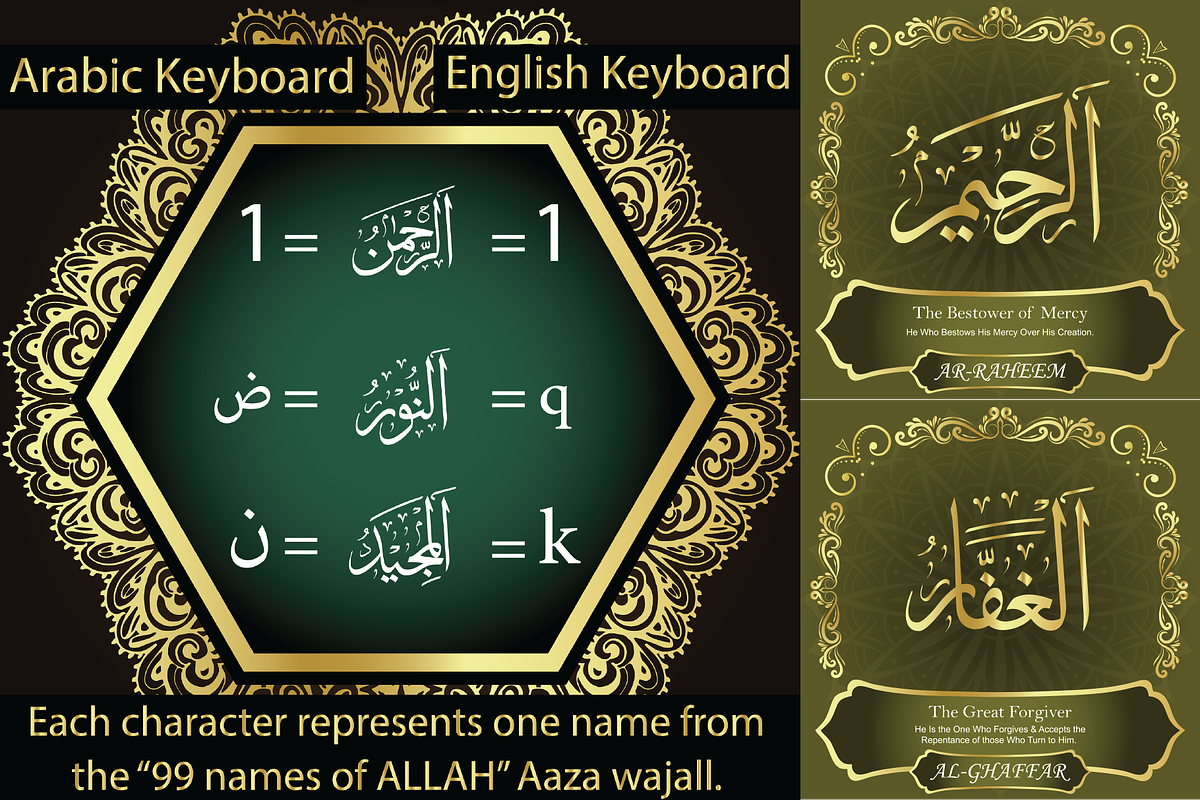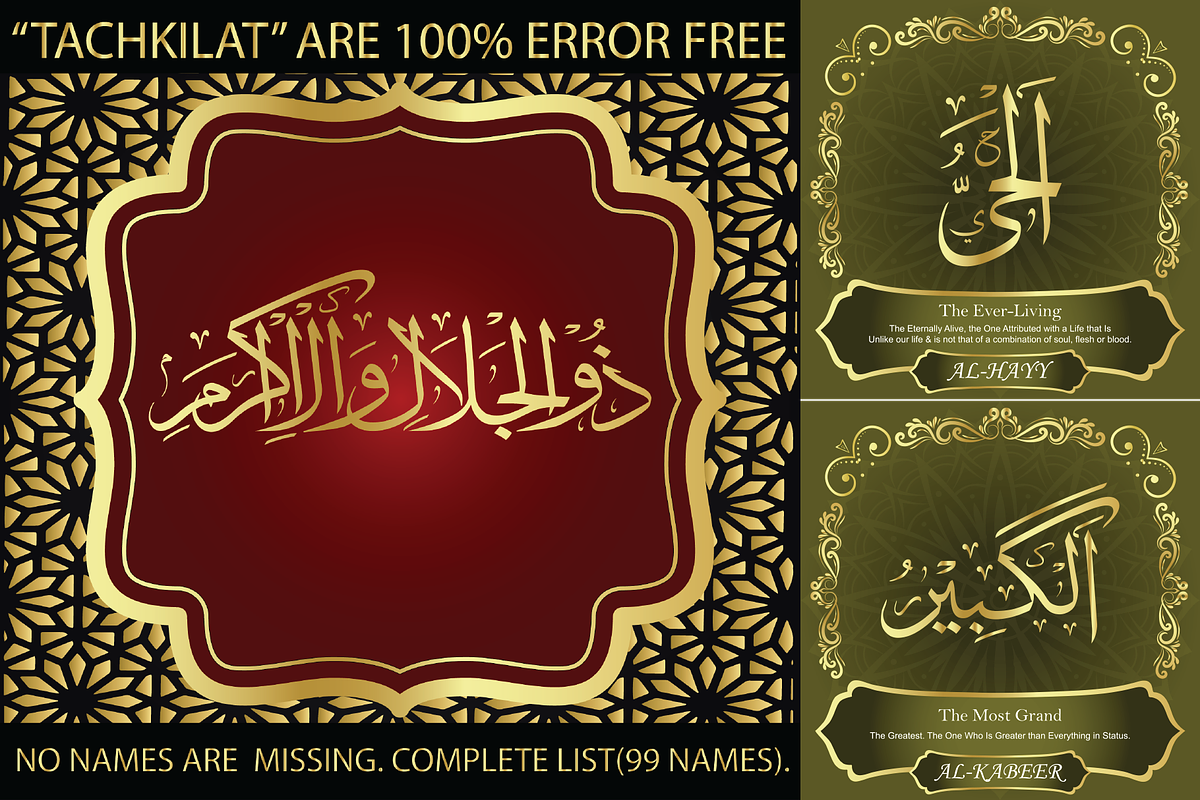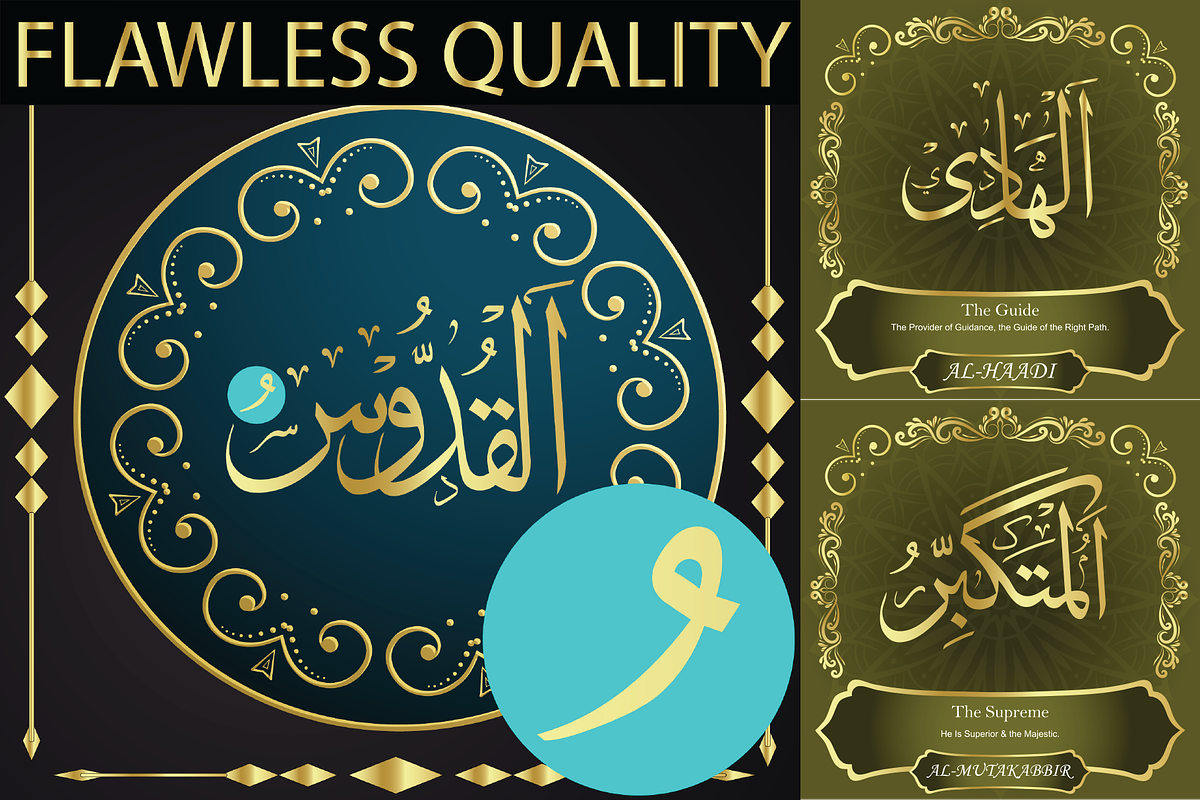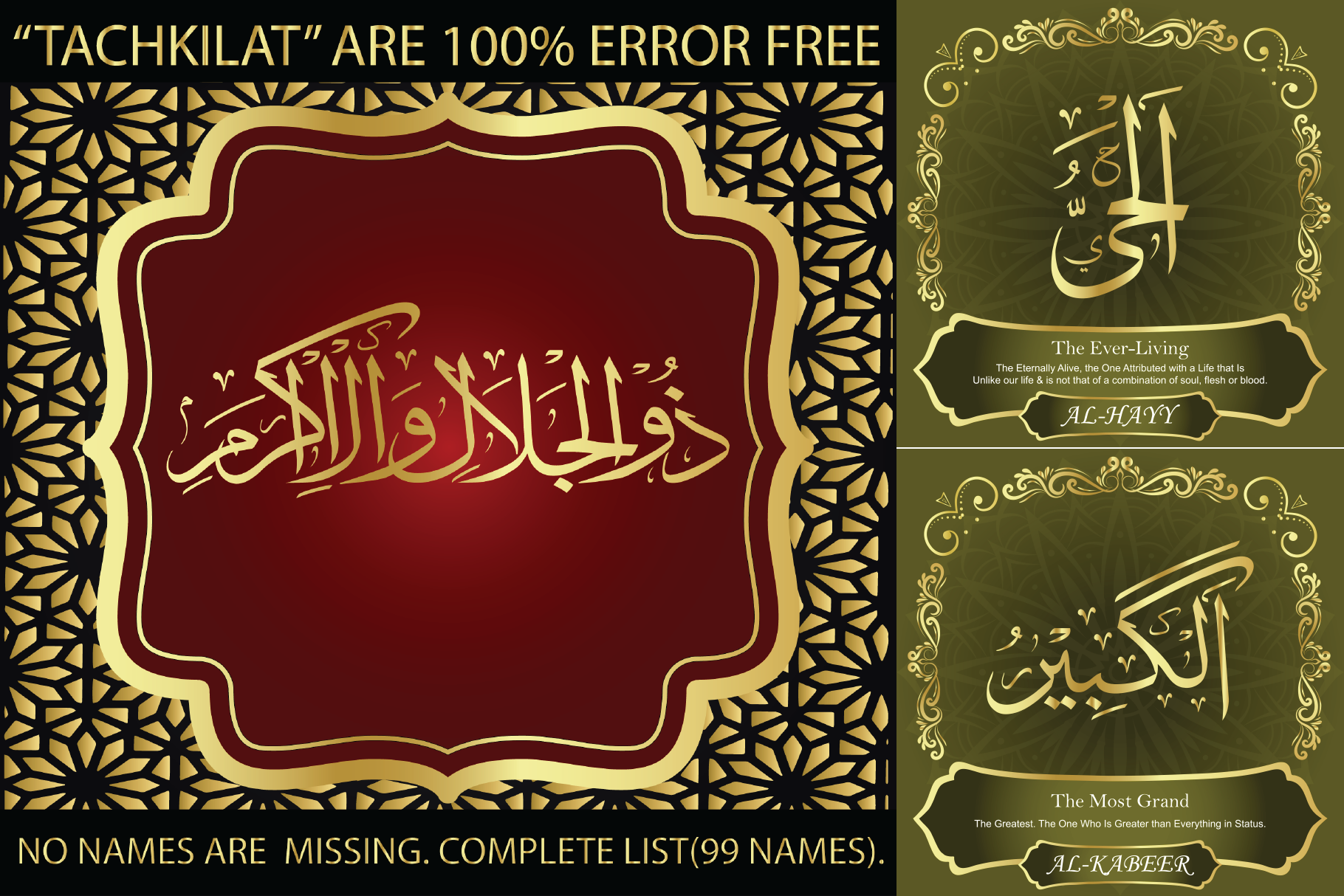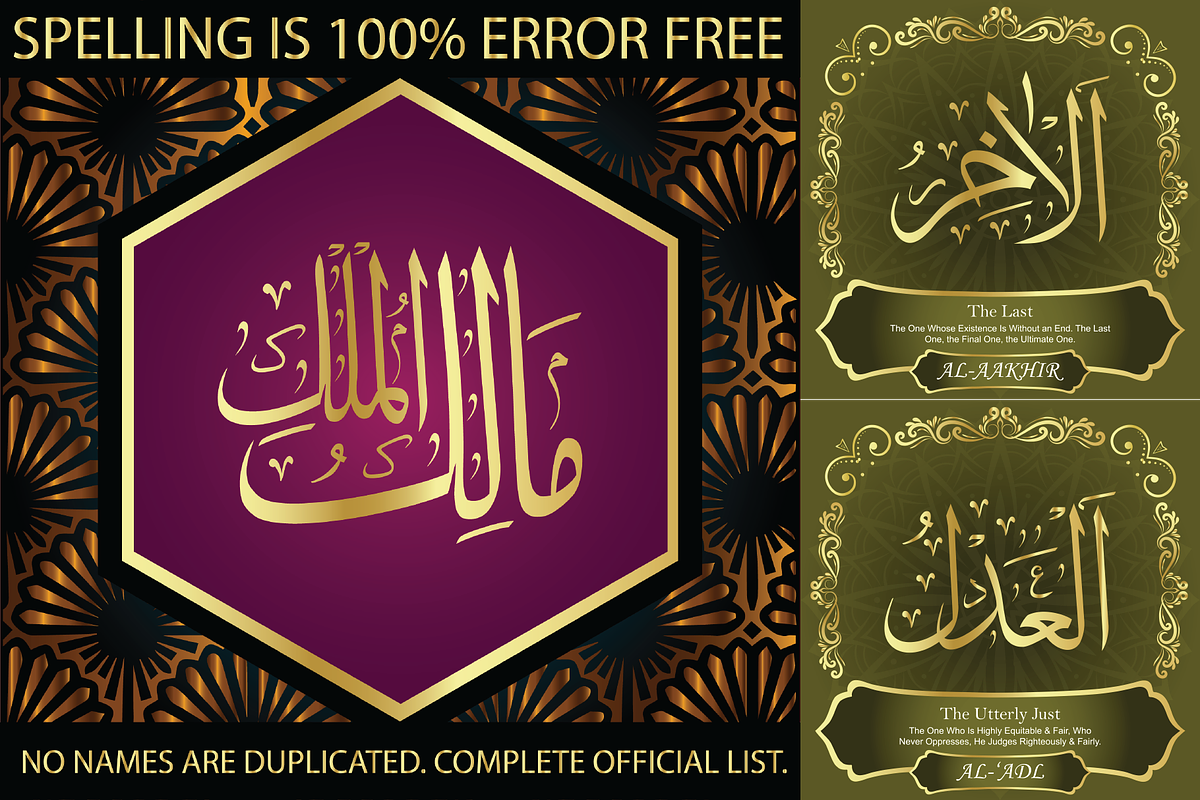
99 Names of ALLAH "Elegant" Font
We have transformed the “99 names of ALLAH” into a font. That means each key on your keyboard represents 1 of the 99 names of ALLAH Aaza Wajal. The fonts work with both the English and Arabic Keyboards.
We call this Calligraphy "Elegant" because we thought this is the most elegant one we have designed. Everything is so clear, nothing overlaps, decorative symbols are not too much nor too little. The first "Alef" has a "fatha", this indicates to pronounce the first letter. So instead of saying "R-RAHMAAN" you say "AR-RAHMAAN" (in the zip file you will find a pdf file explaining the differences in the "harakat", pronunciation and spelling according to the Holy Quran). The "Ye" at the end of names doesn't have the two dots, and we used a decorative small letter "Ye".
Purpose & use:
- Writers: Highlight the names in your texts in beautiful Islamic calligraphy.
- Editors: Use with kinetic typography templates (AE) & editing software.
- Designers: The very small details in the names does not affect the quality. Rest assured it is flawless.
The MOST IMPORTANT THING about this list is that all the names are 100% ERROR FREE, and you can USE THEM WITH YOUR EYES CLOSED. All the “Tachkilat” are 100% ERROR FREE, all the "Spelling" is 100% ERROR FREE, and they all have been written in accordance with the Holy Quran. No names are missing and no names are duplicated. The list is complete "99 names +1". The +1 is the name “ALLAH” 'Aza wajal.
Another important thing is how we use the decorative letters. In every font you will see small decorative letters, these letters are used only in accordance with their respective letters to indicate pronunciation & we don't include them randomly. That means "mim" on top or below the letter "mim", "sin" on top or below the letter "sin", and so on and so forth.